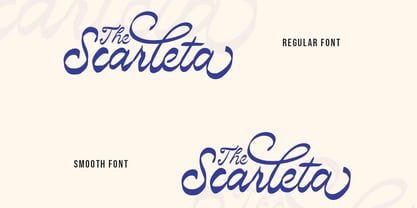
The Scarleta
by Struggle Studio
The The Scarleta Font Family was designed by Andri Kurniawan and published by Struggle Studio. The Scarleta contains 2 styles and family package options. More about this family
Scarleta is a bold and elegant handwriting script font that exudes charm and creativity. Featuring smooth curves and stylish strokes, this typeface comes in two distinctive styles: Smooth and Brushed. With its fluid, calligraphic design, it is ideal for branding, packaging, invitations, logos, and display titles.
The font supports multiple languages and includes a selection of alternates, making it versatile and adaptable for a wide range of creative projects.
Designers: Andri Kurniawan
Foundry: Struggle Studio